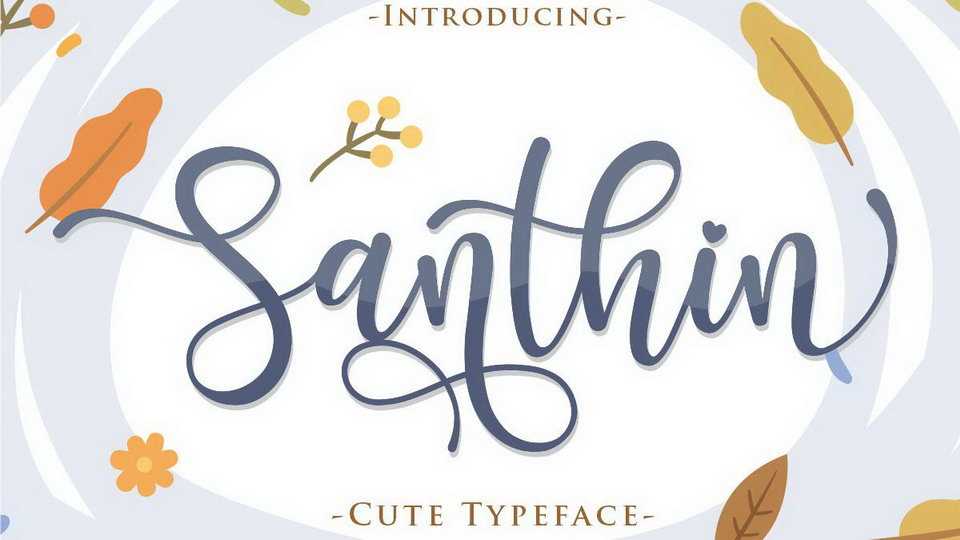
Download Santhin font, lovely, soft handlettered script. The playful rounded characters make it the perfect font for creating stunning crafts, wedding invitations, cards and more.
Designer: Gilar Studio